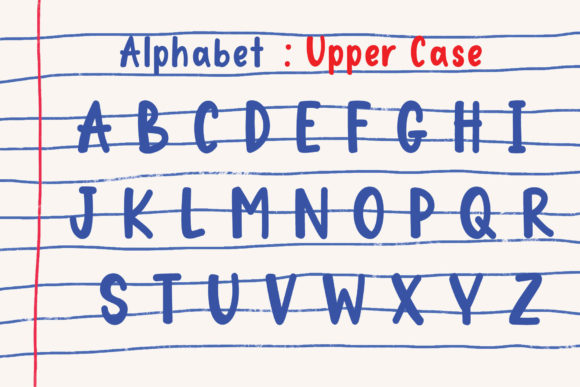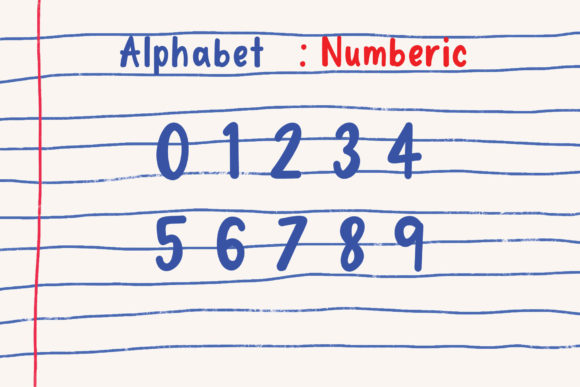
Alphabet Font
db-ku.com - Script & Handwritten -- Alphabet is a sweet and friendly handwritten font. Its natural and unique style makes it incredibly fitting to a large pool of designs. The only limit is your imagination!